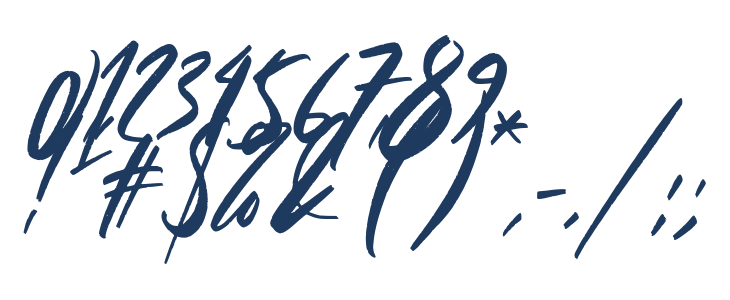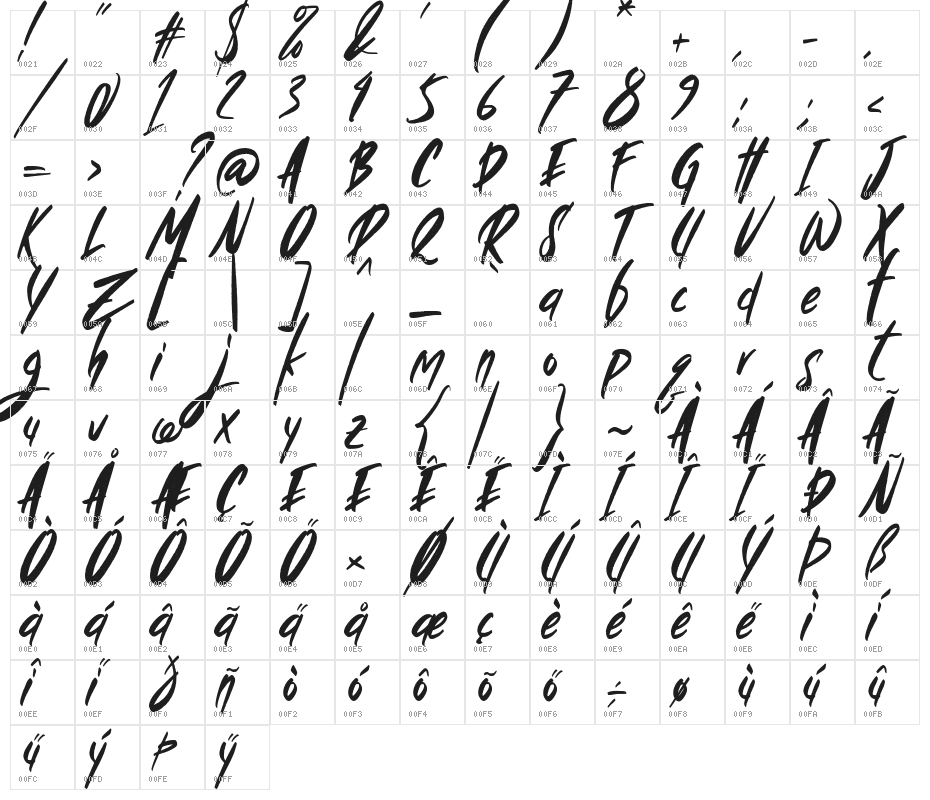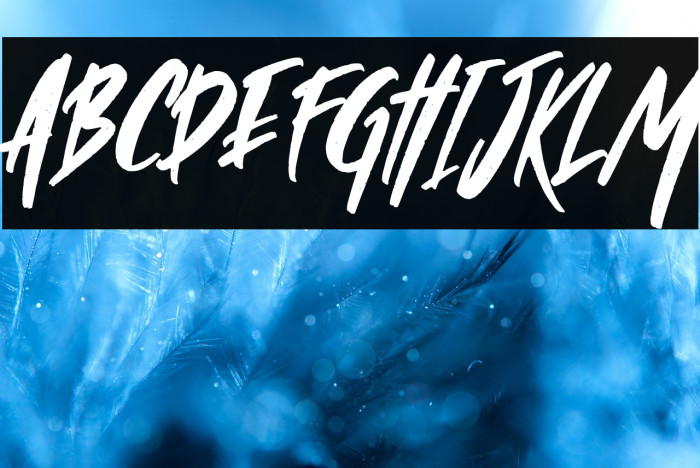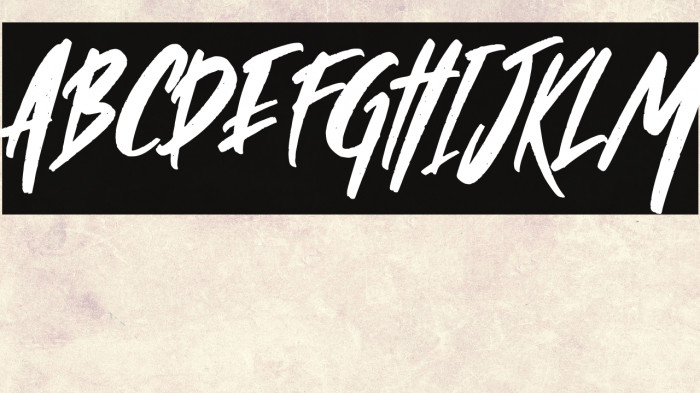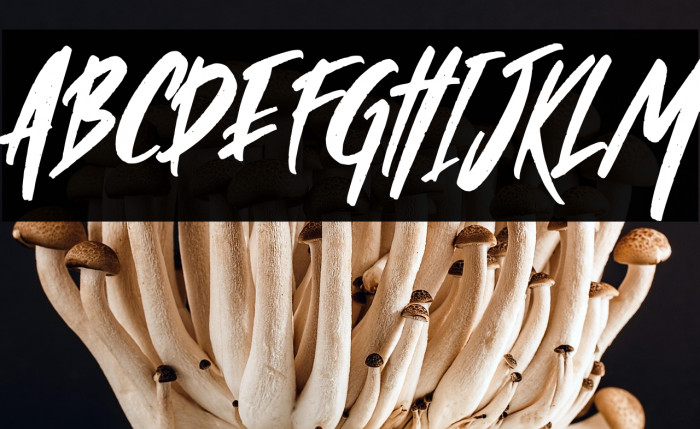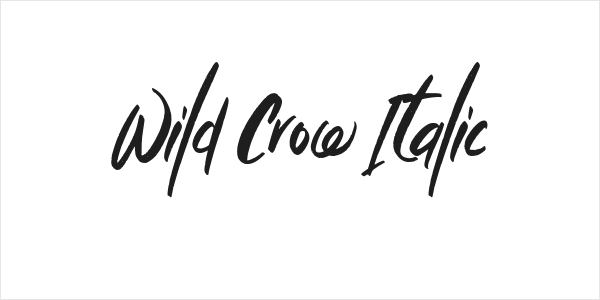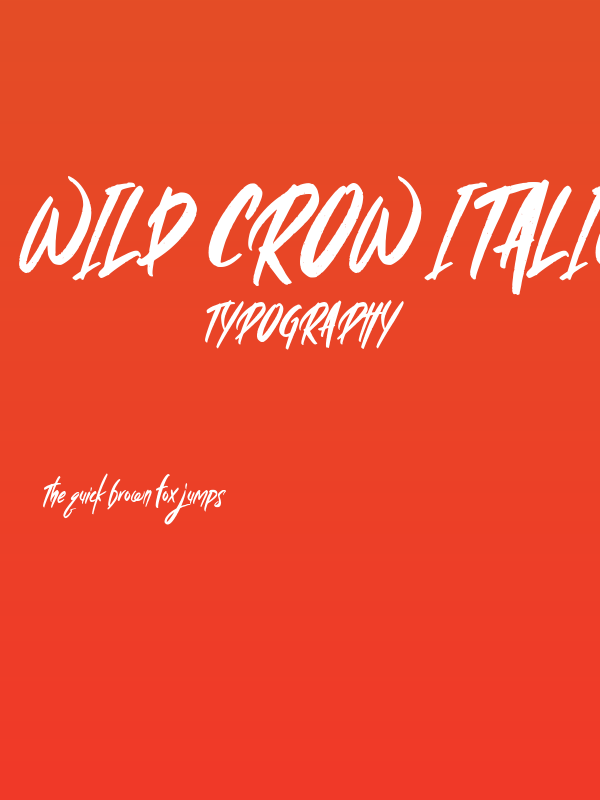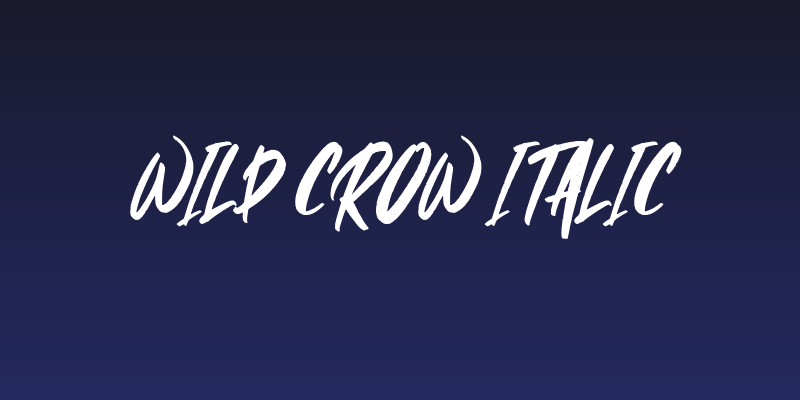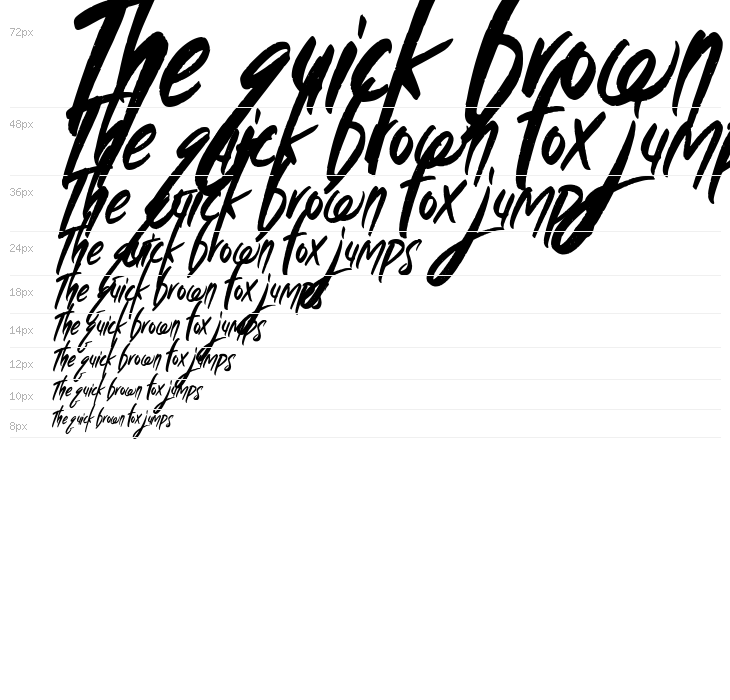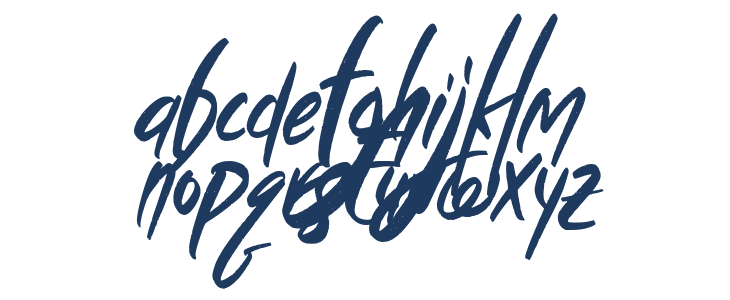
Wild Crow Italic Font
Wild Crow Italic Description
This font features a bold, expressive style with a dynamic and energetic flow. The letters are slanted, giving it an italic appearance, and the strokes are thick and confident, creating a strong visual impact. The characters are closely spaced, enhancing the sense of movement and urgency. The uppercase letters are tall and commanding, while the lowercase letters maintain a consistent rhythm and style. The numbers and special characters are crafted with the same boldness, ensuring uniformity across all elements. This font is ideal for projects that require a dramatic and eye-catching design.
| Proposed Projects | Ideal for branding, posters, headlines, and any design needing a bold statement. |